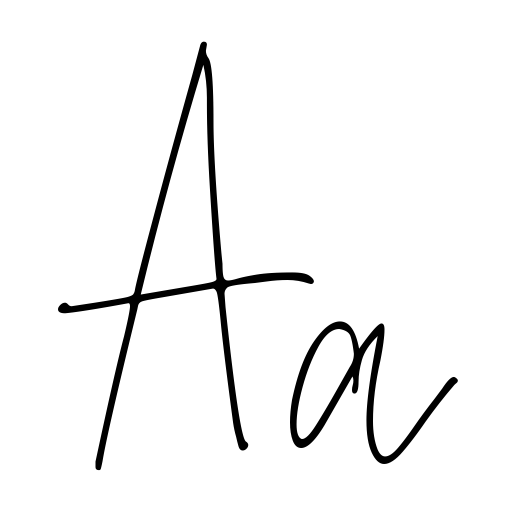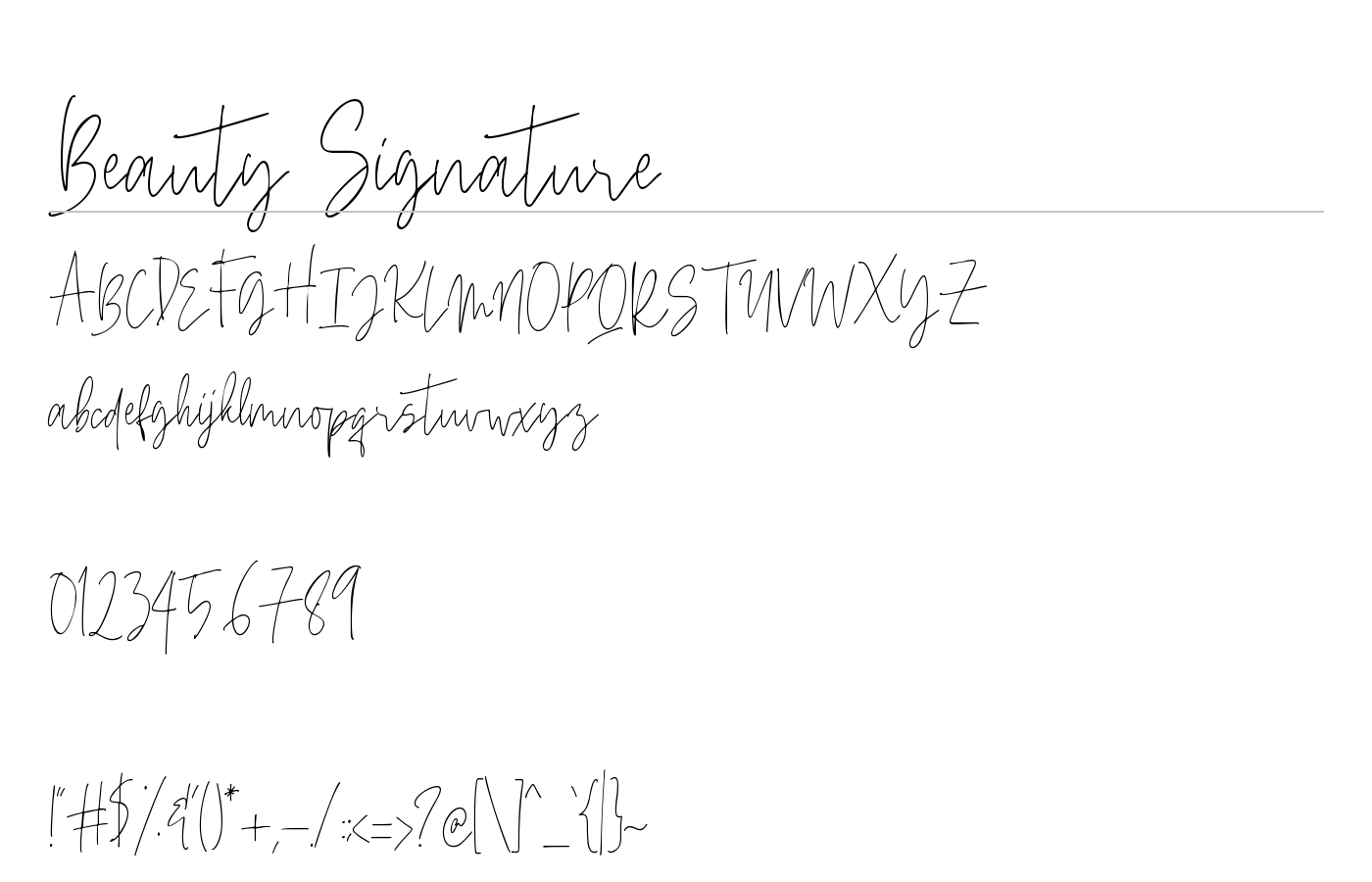
Beauty Signature Font is a delicate, handwritten script with a light, airy feel that mimics natural cursive handwriting. Its thin, flowing strokes and elegant, slightly irregular letterforms give it a personal, sophisticated touch, making it perfect for branding, invitations, and stylish editorial projects that seek a refined yet approachable look. This font works beautifully in contexts where a graceful and intimate vibe is desired, such as fashion, beauty, and luxury lifestyle designs.
Beauty Signature Font
About Beauty Signature Font
| Font family | Beauty Signature Font |